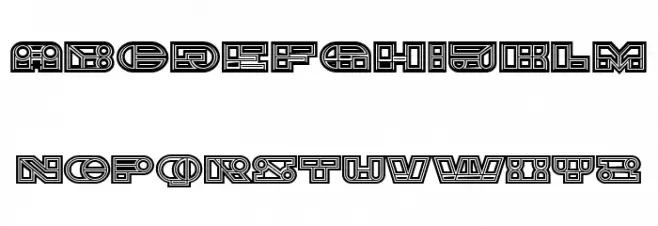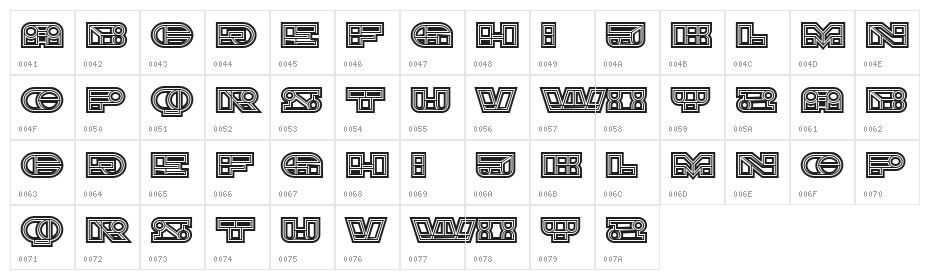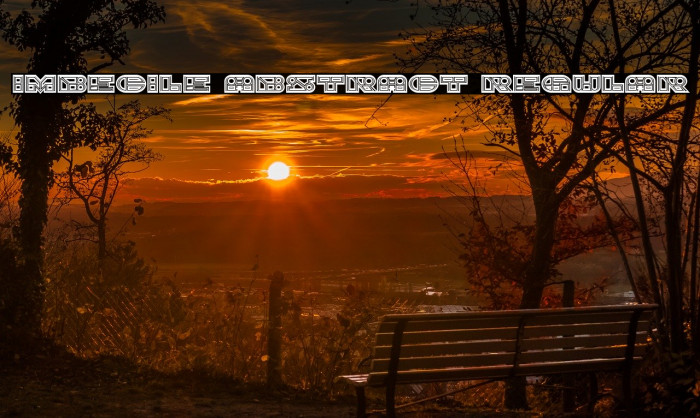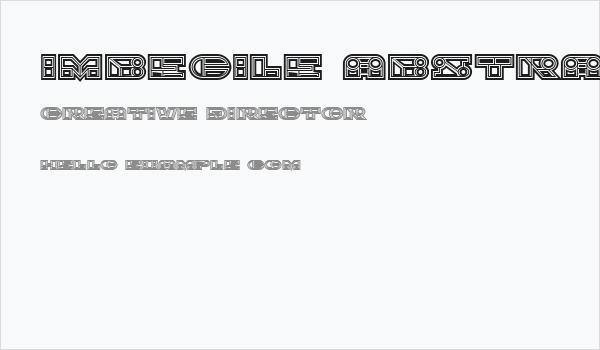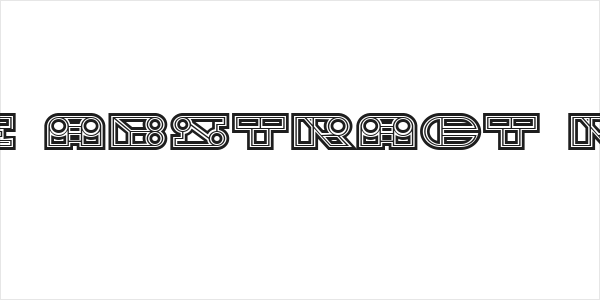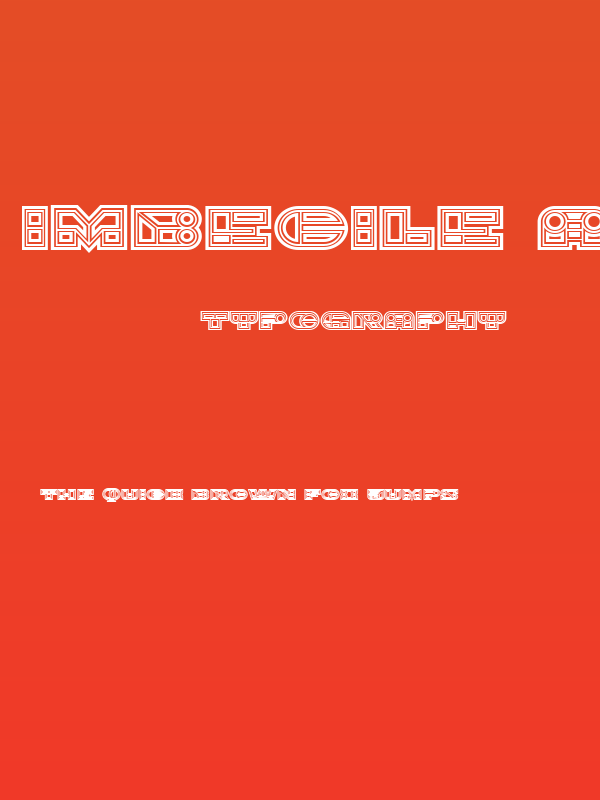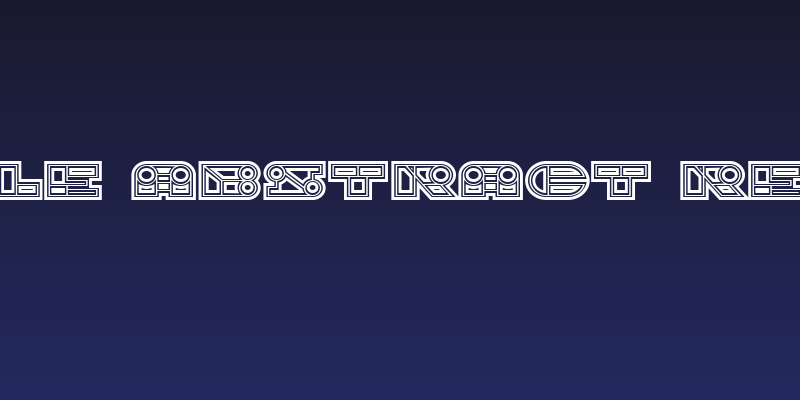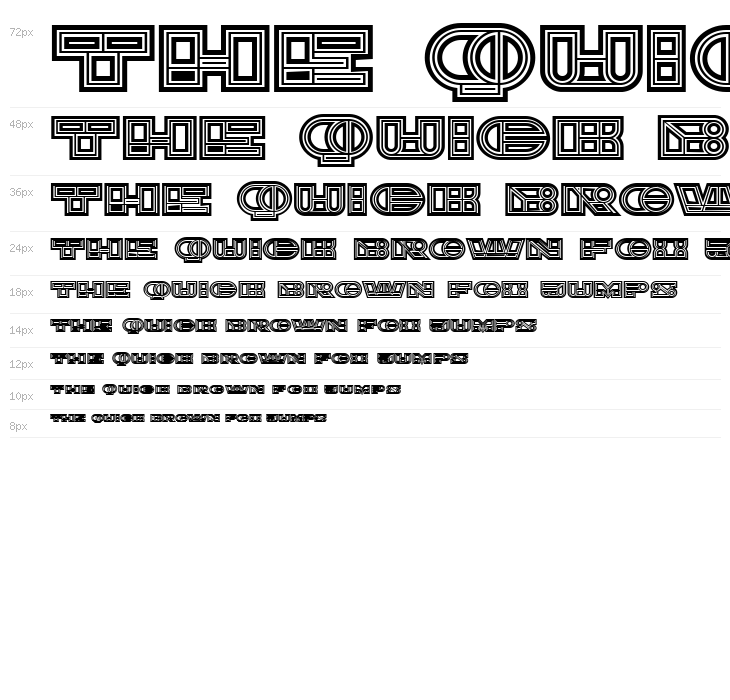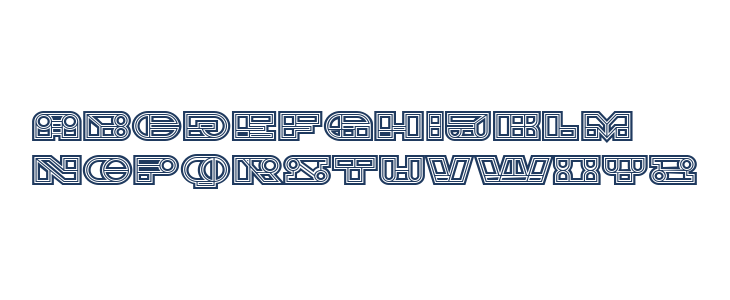
Imbecile Abstract Regular Font
Imbecile Abstract Regular Description
This font features an abstract and geometric design, characterized by intricate patterns and shapes within each letterform. The uppercase and lowercase letters are crafted with a unique blend of lines and curves, creating a visually striking appearance. The numbers and special characters maintain the same level of detail, ensuring consistency throughout the typeface. This font's artistic and decorative nature makes it stand out, offering a bold statement in any design project. Its complex structure suggests a modern and avant-garde style, suitable for creative and unconventional applications.
Overall StyleModern, Avant-garde
Use CaseHeadlines, Logos, Artistic projects
Proposed ProjectsIdeal for artistic posters, album covers, branding for creative industries, and unique logo designs.